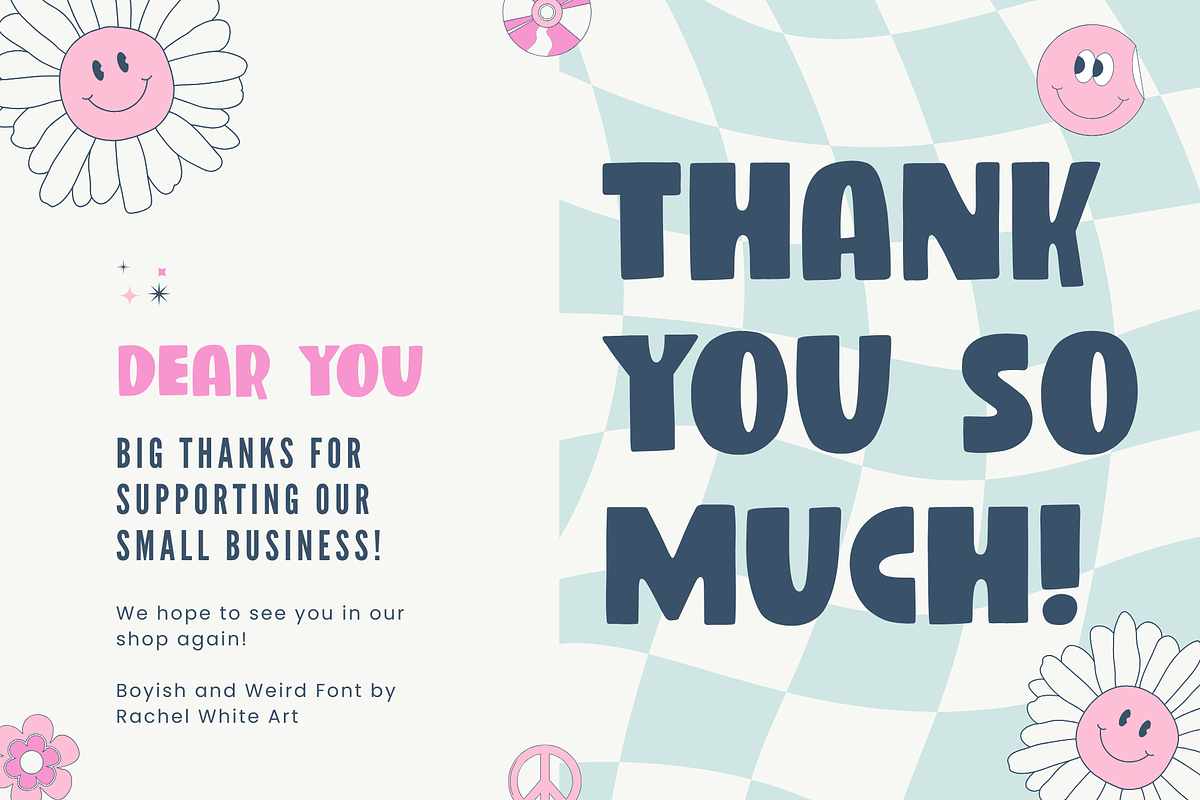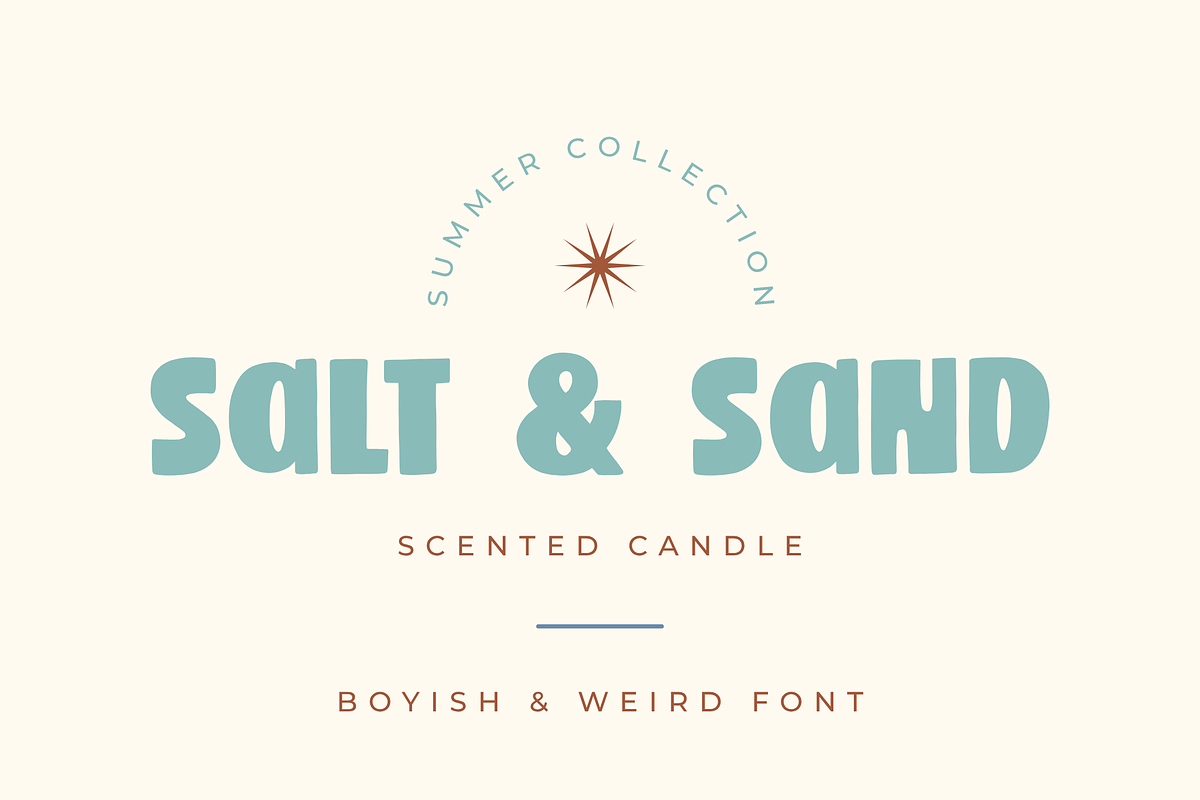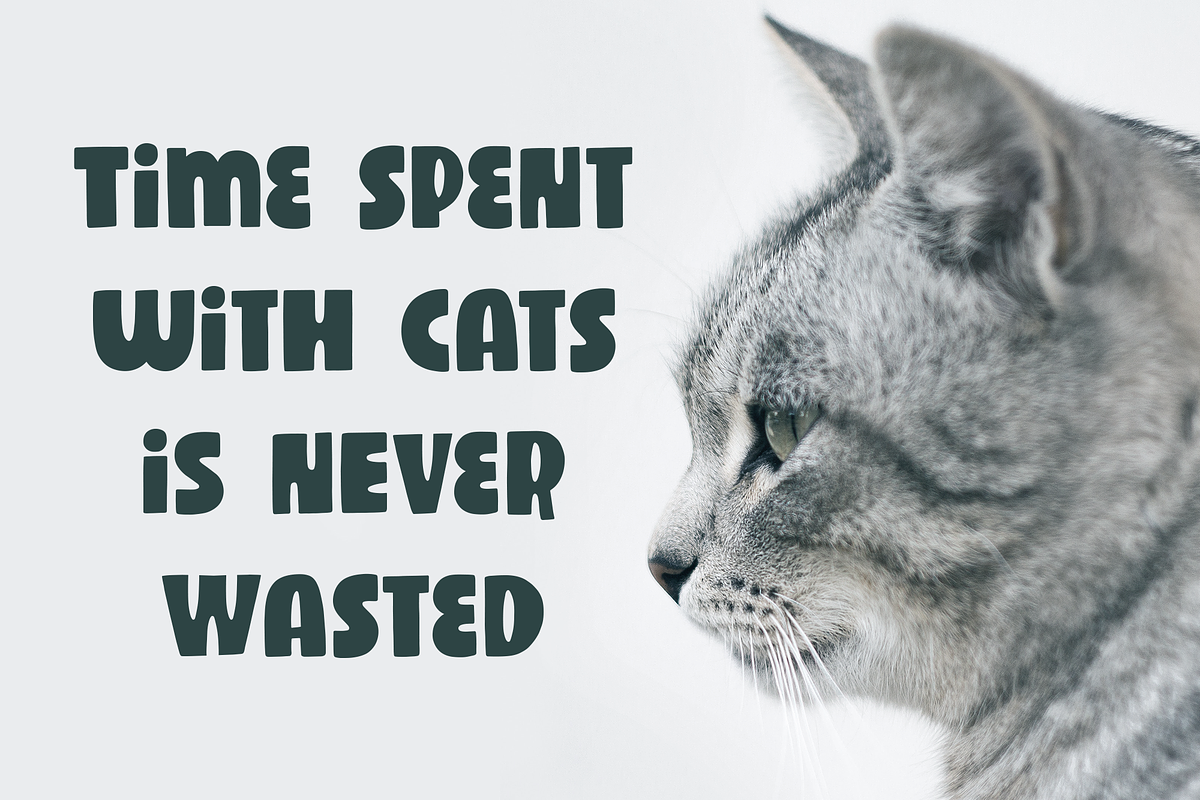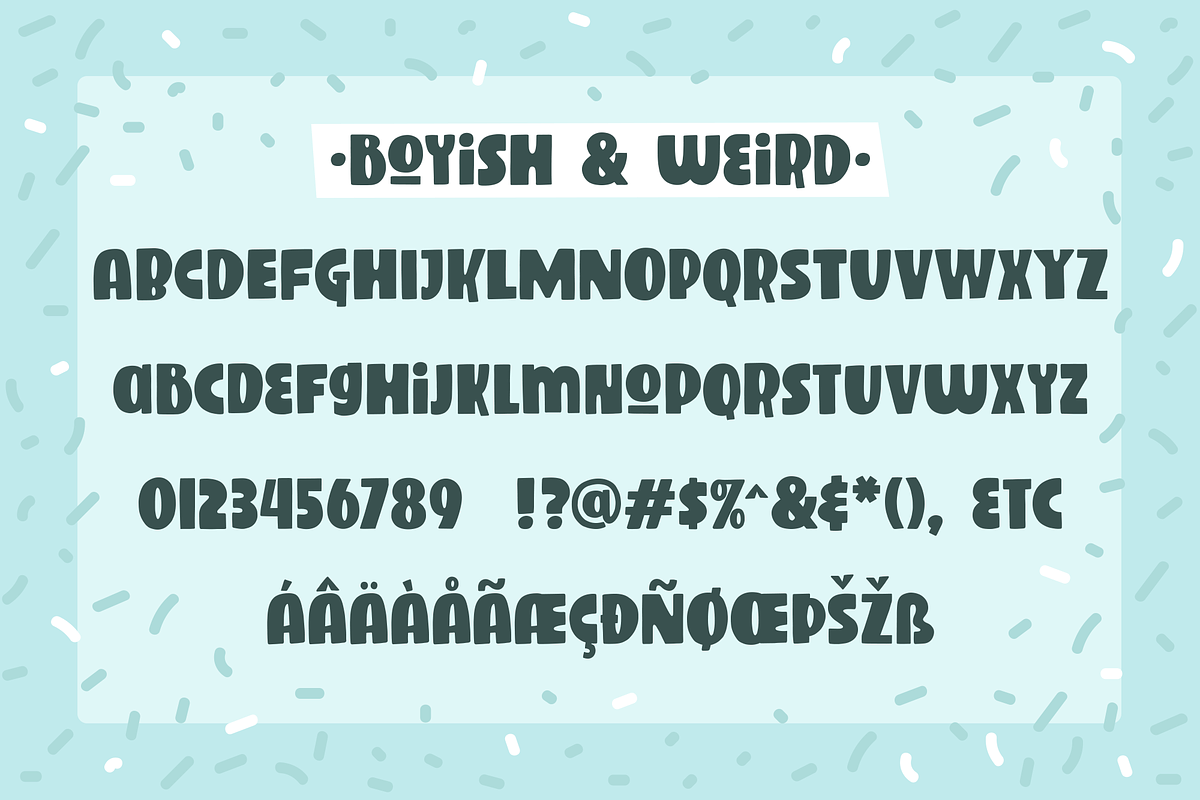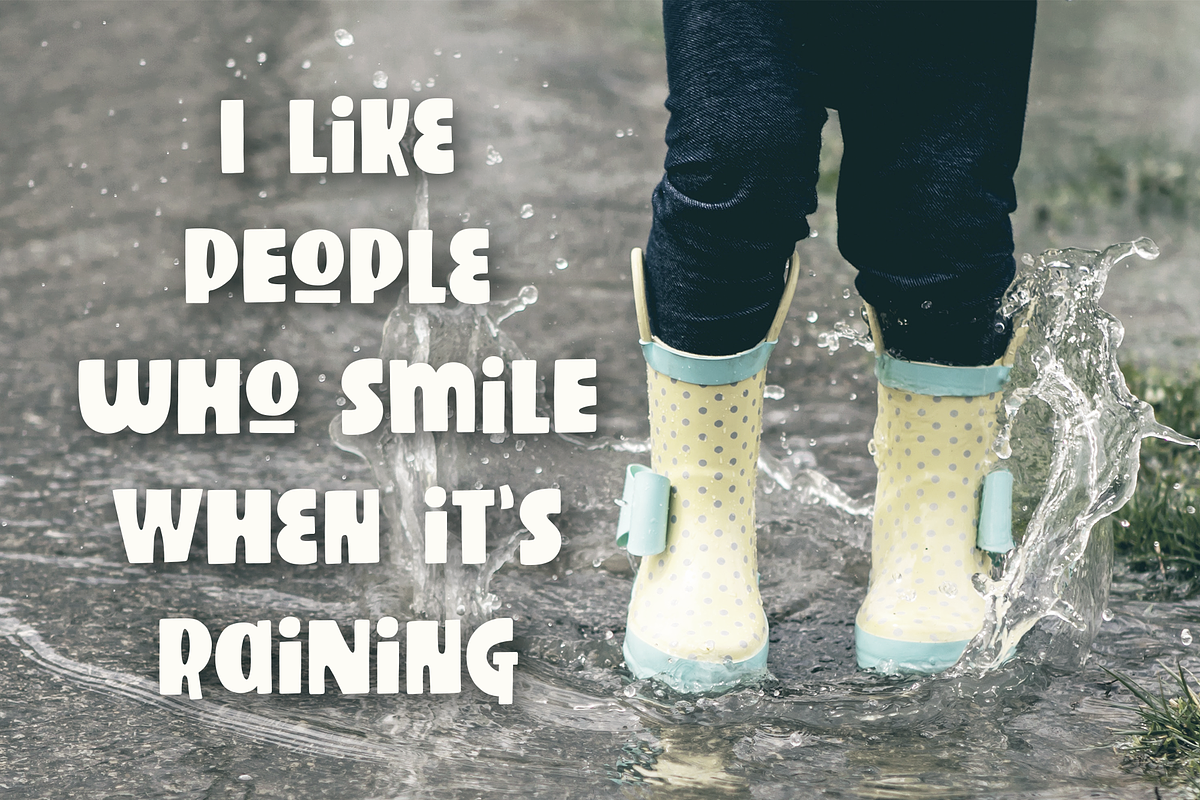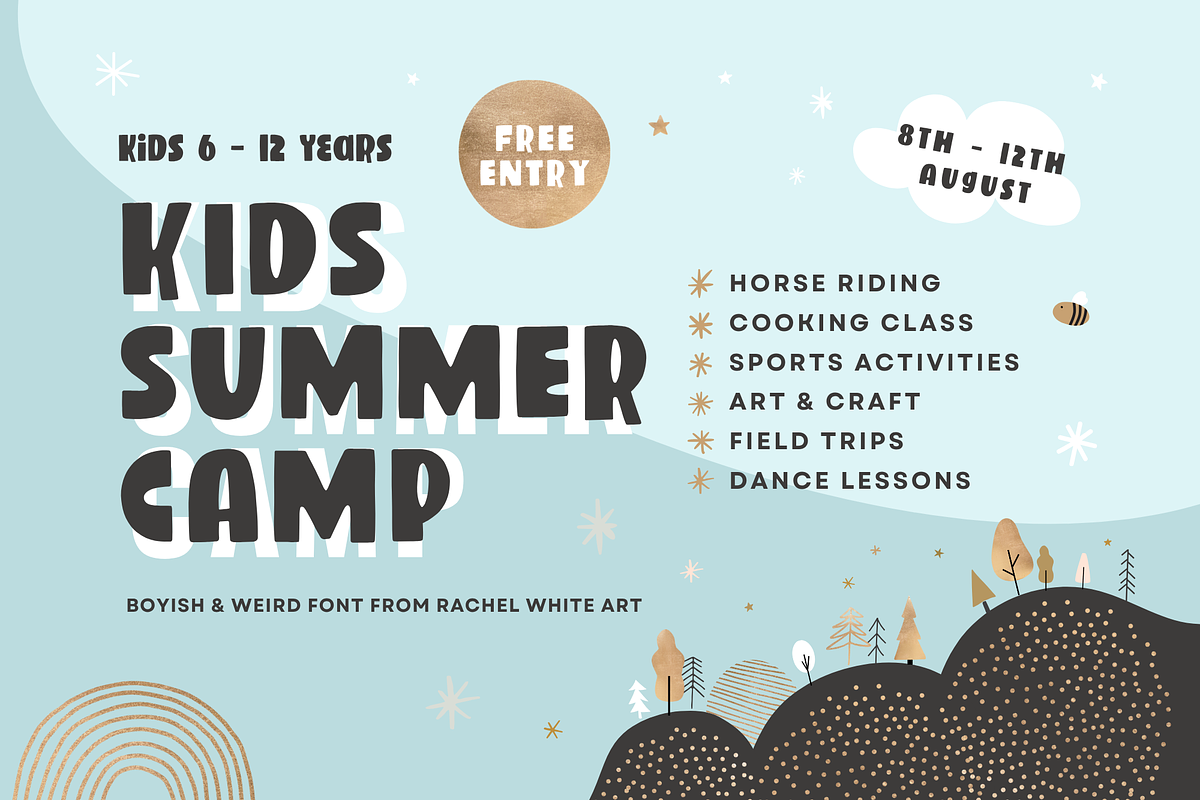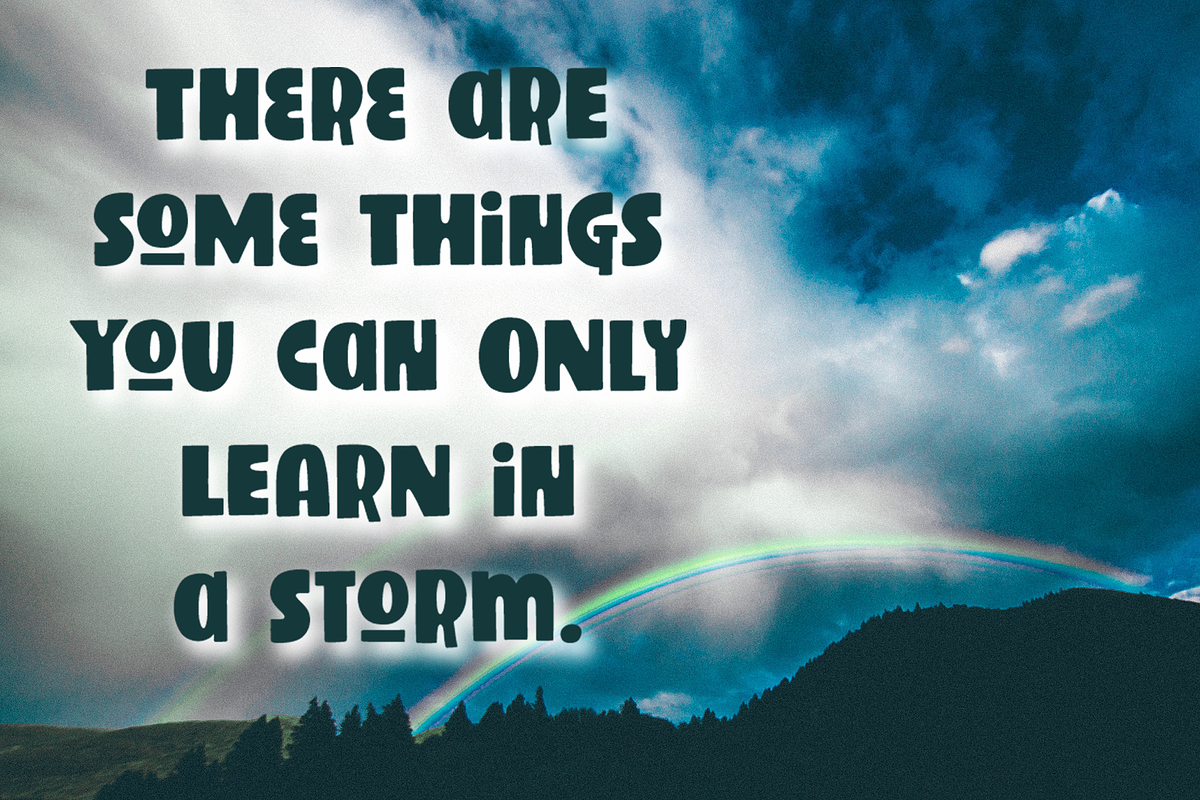
Boyish & Weird, a strange font
Boyish & Weird is a hand-drawn display font with an oddball personality and plenty of charm. The letters are offbeat, irregular, and a little unpredictable—just right for designs that need to stand out and embrace the weird in a fun, lighthearted way.
Great for stickers, posters, kids’ designs, zines, playful branding, and anything that needs a quirky twist, this font leans into the strange while still being cute and readable.